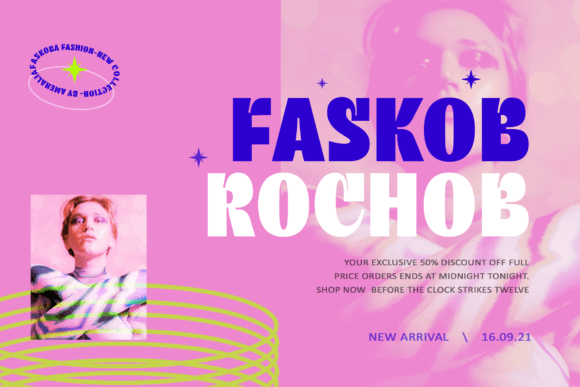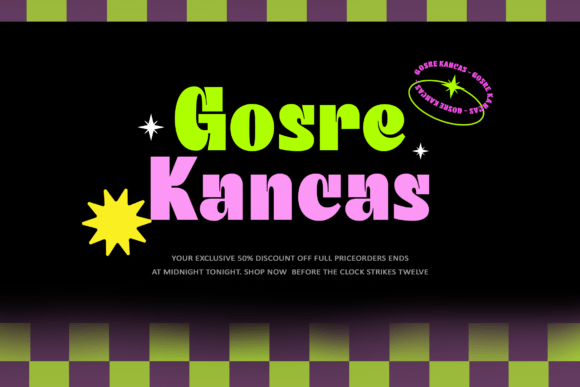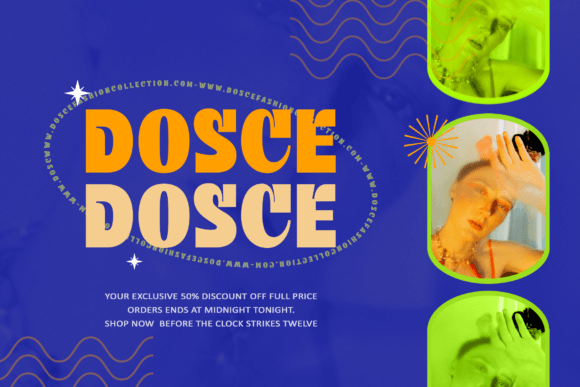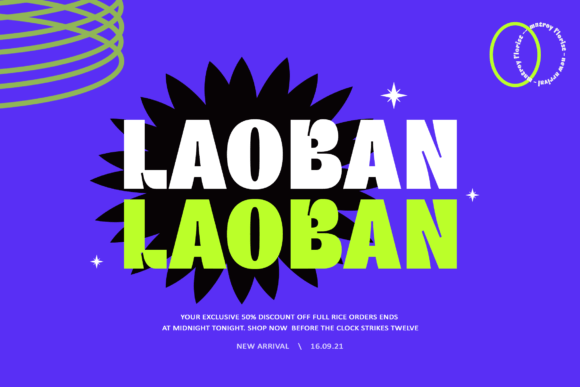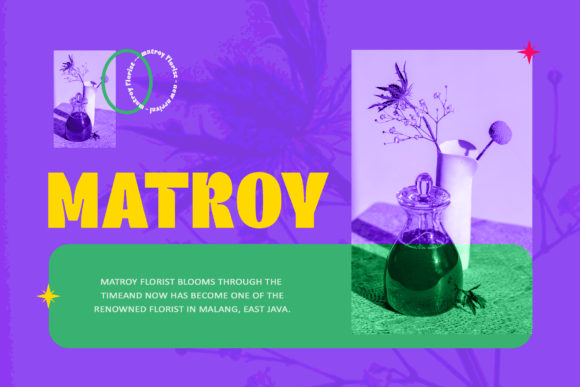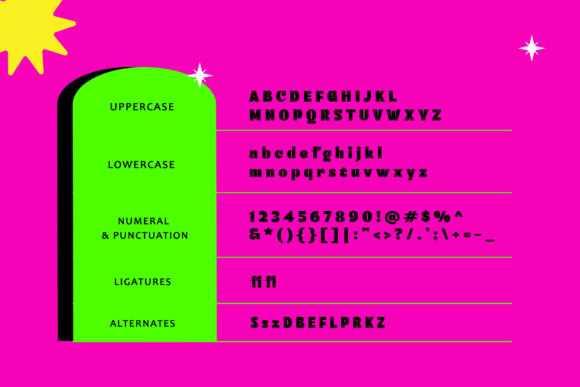
Introducing Gatezink: The Bold and Playful Sans Serif Font
Are you tired of using the same old fonts in your designs? Look no further than Gatezink, the bold and black sans serif font that’s perfect for adding a touch of fun and playfulness to your creations. With its retro and pop-inspired style, Gatezink is the perfect choice for display purposes, from eye-catching headlines to attention-grabbing posters.
The Power of Bold and Black Lines
Gatezink’s thick and heavy lines give it a strong and powerful appearance that’s sure to make a statement. The bold lines are perfect for creating eye-catching graphics, while the black color adds a touch of sophistication and elegance. Whether you’re designing a logo, a brochure, or a website, Gatezink’s bold and black lines are sure to grab the attention of your audience.
Playful Curves and Angles
But Gatezink is more than just a bold and powerful font – it’s also playful and whimsical. The font features playful curves and angles that add a touch of personality and fun to your designs. The curves and angles give Gatezink a dynamic and energetic feel that’s perfect for brands and designers who want to add a touch of playfulness to their creations.
Versatile and Adaptable
Gatezink is a versatile font that can be used for a wide range of applications, from advertising and branding to packaging and web design. The font is perfect for creating eye-catching headlines, attention-grabbing posters, and bold and playful logos. And with its bold and black lines, Gatezink is also perfect for creating striking graphics and illustrations.
Perfect for Display Purposes
Gatezink is specifically designed for display purposes, making it perfect for creating eye-catching headlines, attention-grabbing posters, and bold and playful logos. The font is optimized for large sizes, making it perfect for billboards, signage, and other large-format applications. And with its bold and black lines, Gatezink is also perfect for creating striking graphics and illustrations.
Adding a Touch of Retro and Pop Flair
Gatezink’s retro and pop-inspired style adds a touch of nostalgia and fun to your designs. The font’s bold and black lines, combined with its playful curves and angles, give it a unique and distinctive look that’s sure to stand out. Whether you’re designing a logo, a brochure, or a website, Gatezink’s retro and pop flair is sure to add a touch of personality and whimsy to your creations.
Why Choose Gatezink?
So why choose Gatezink for your design projects? Here are just a few reasons:
• Bold and eye-catching: Gatezink’s bold and black lines make it perfect for creating eye-catching graphics and headlines.
• Playful and whimsical: Gatezink’s playful curves and angles add a touch of personality and fun to your designs.
• Versatile and adaptable: Gatezink can be used for a wide range of applications, from advertising and branding to packaging and web design.
• Retro and pop-inspired: Gatezink’s retro and pop-inspired style adds a touch of nostalgia and fun to your designs.
In conclusion, Gatezink is a bold and playful sans serif font that’s perfect for adding a touch of fun and playfulness to your designs. With its retro and pop-inspired style, Gatezink is the perfect choice for display purposes, from eye-catching headlines to attention-grabbing posters. The font’s bold and black lines, combined with its playful curves and angles, make it a versatile and adaptable choice for a wide range of applications. So why not give Gatezink a try and add a touch of personality and whimsy to your designs?